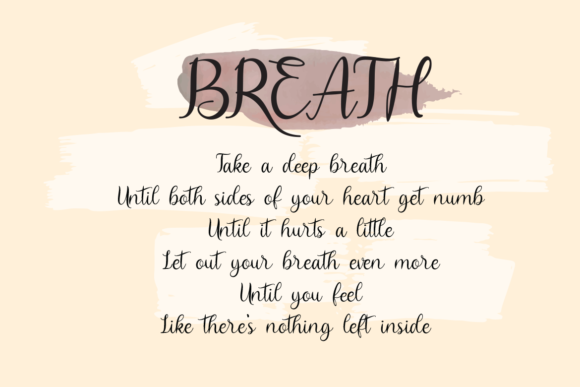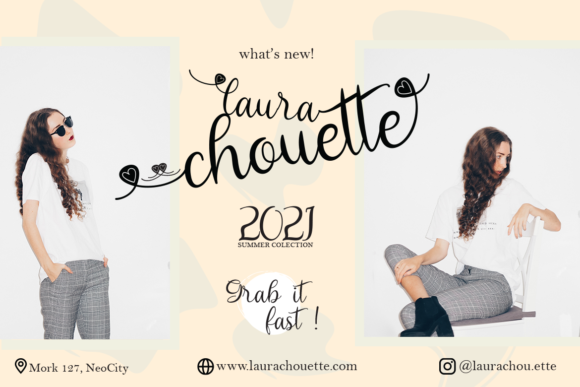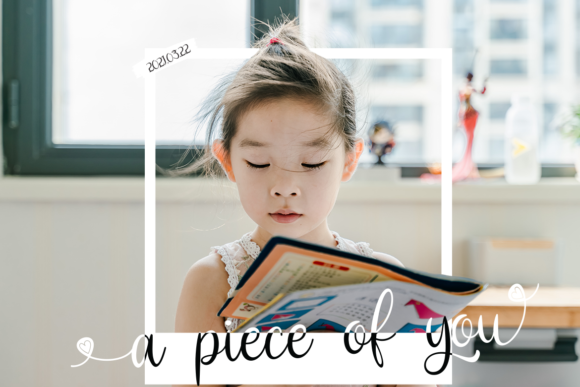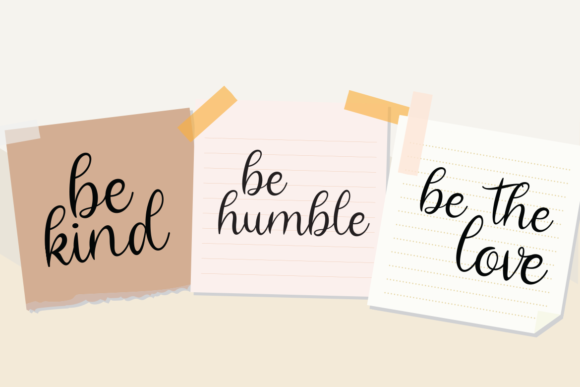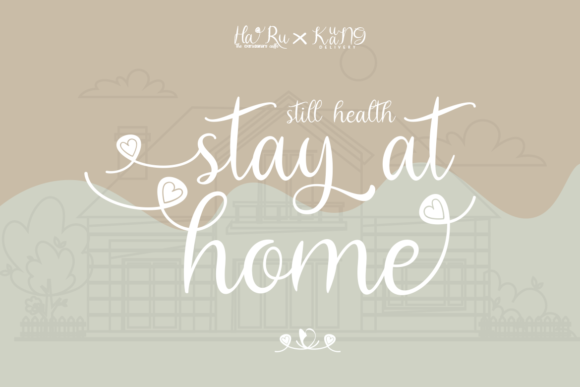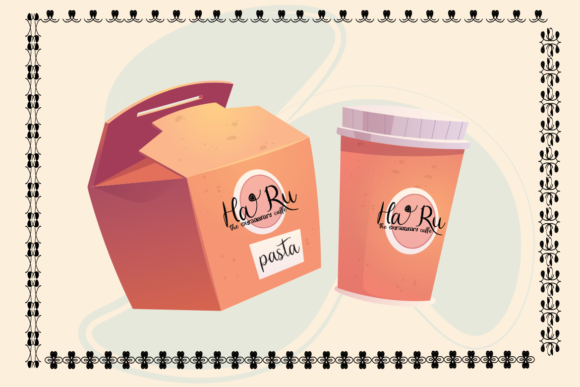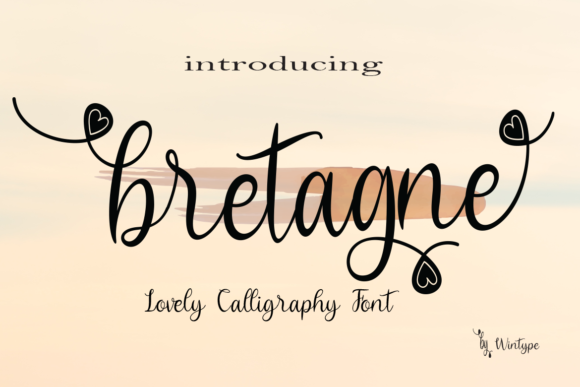
Bretagne Font: Elevate Your Designs with Elegance and Sophistication
In the world of typography, a font can make all the difference in transforming a design from ordinary to extraordinary. For designers and crafters seeking a touch of elegance and sophistication, the Bretagne font is an exquisite choice. This delicate and elegant handwritten font is perfect for a variety of designs that require a personalized style, such as wedding invitations, thank you cards, weddings, greeting cards, logos, and more.
The Beauty of Bretagne Font
Bretagne font boasts a unique, handcrafted charm that adds a touch of refinement to any design. Its intricate strokes and delicate lines create a beautiful, eye-catching effect that is sure to captivate your audience. Whether you’re designing a wedding invitation, a logo, or a greeting card, Bretagne font is the perfect choice for those seeking a sophisticated and elegant look.
One of the standout features of Bretagne font is its versatility. It can be used for a wide range of design projects, from formal events like weddings and anniversaries to everyday applications like logos and branding. The font’s elegance and sophistication make it an excellent choice for designers and crafters who want to create unique and memorable designs.
Bretagne font is PUA (Private Use Area) encoded, which means that accessing all the glyphs and swashes is a breeze. PUA encoding allows designers to access a wide range of special characters, including ligatures, ornaments, and swashes, making it easy to add a personal touch to their designs. With Bretagne font, you can easily access all the glyphs and swashes, giving you complete creative control over your designs.
Bretagne font is an excellent choice for designers and crafters who want to add a touch of elegance and sophistication to their designs. Whether you’re a professional designer or a DIY crafter, this font is easy to use and can be applied to a wide range of projects. With Bretagne font, you can create stunning designs that are sure to impress your clients or friends.
Tips for Using Bretagne Font
To get the most out of Bretagne font, here are a few tips to keep in mind:
- Use Bretagne font for designs that require a personal touch, such as wedding invitations, thank you cards, and greeting cards.
- Experiment with different font sizes and colors to create a unique look.
- Combine Bretagne font with other fonts to create a striking contrast.
- Use the glyphs and swashes to add a personal touch to your designs.
In conclusion, Bretagne font is a beautiful and elegant handwritten font that is perfect for designers and crafters seeking to add a touch of sophistication to their designs. With its versatility, PUA encoding, and ease of use, Bretagne font is an excellent choice for a wide range of design projects. Whether you’re designing a wedding invitation, a logo, or a greeting card, Bretagne font is sure to elevate your designs to the next level.